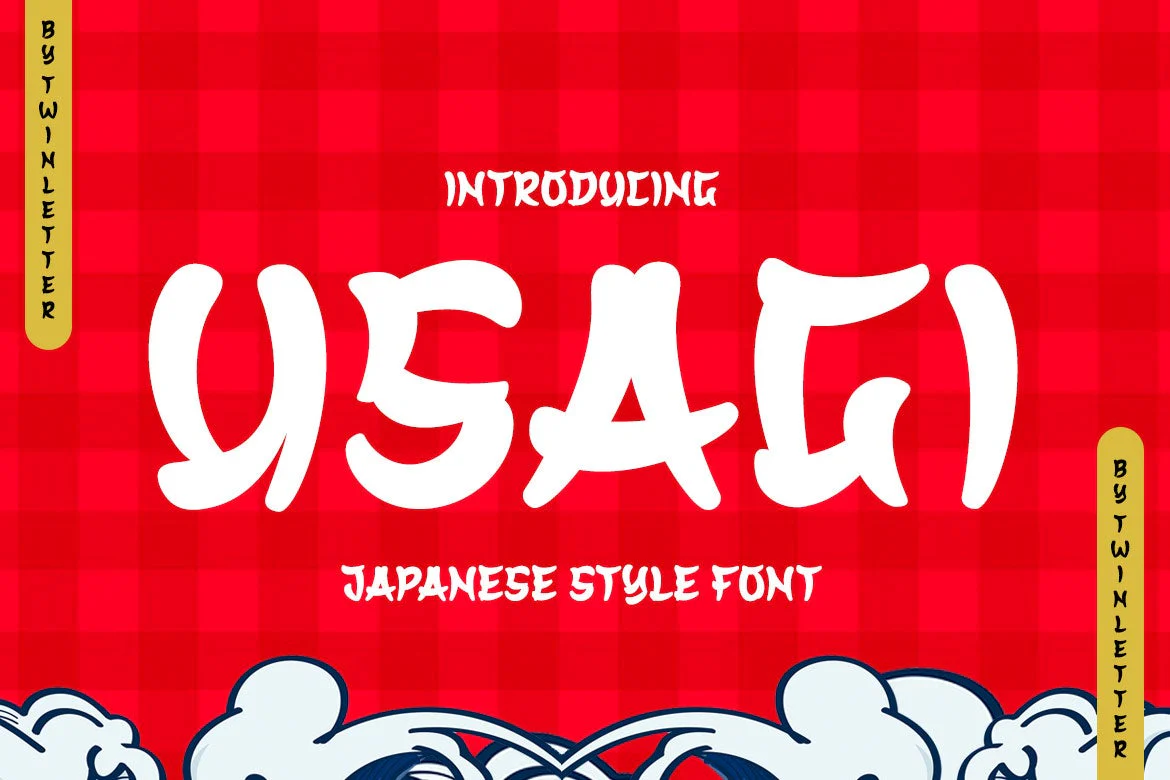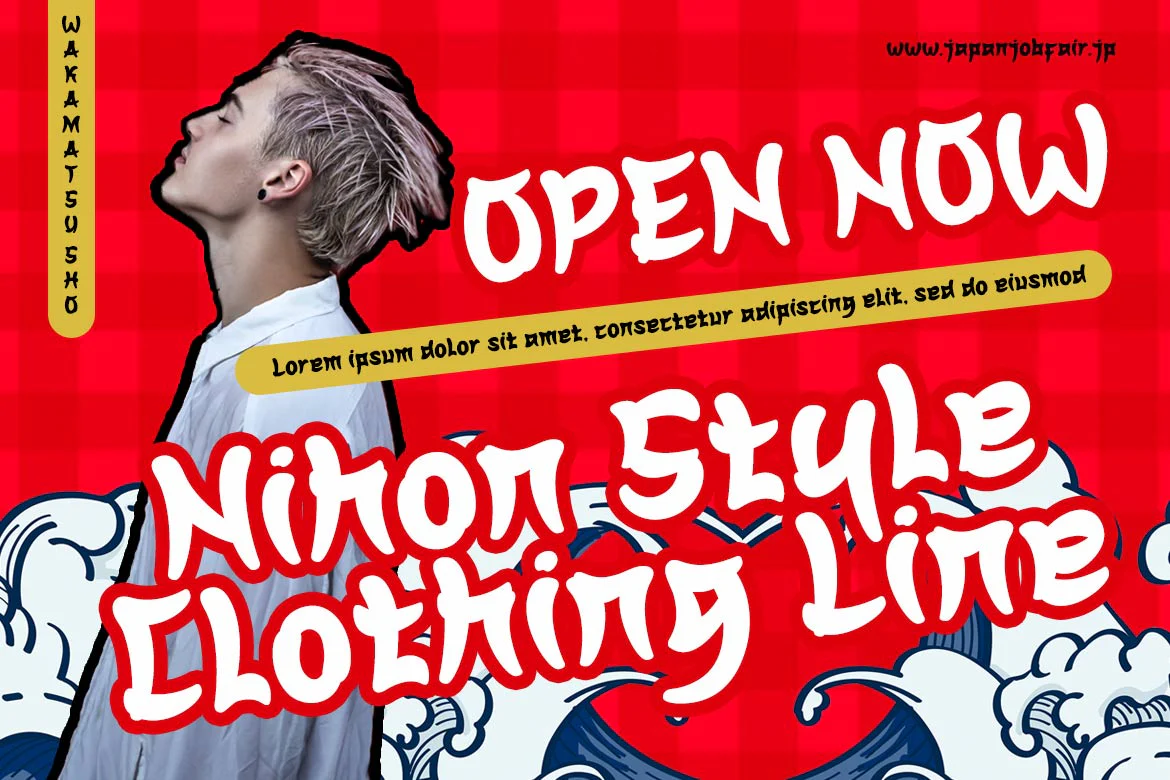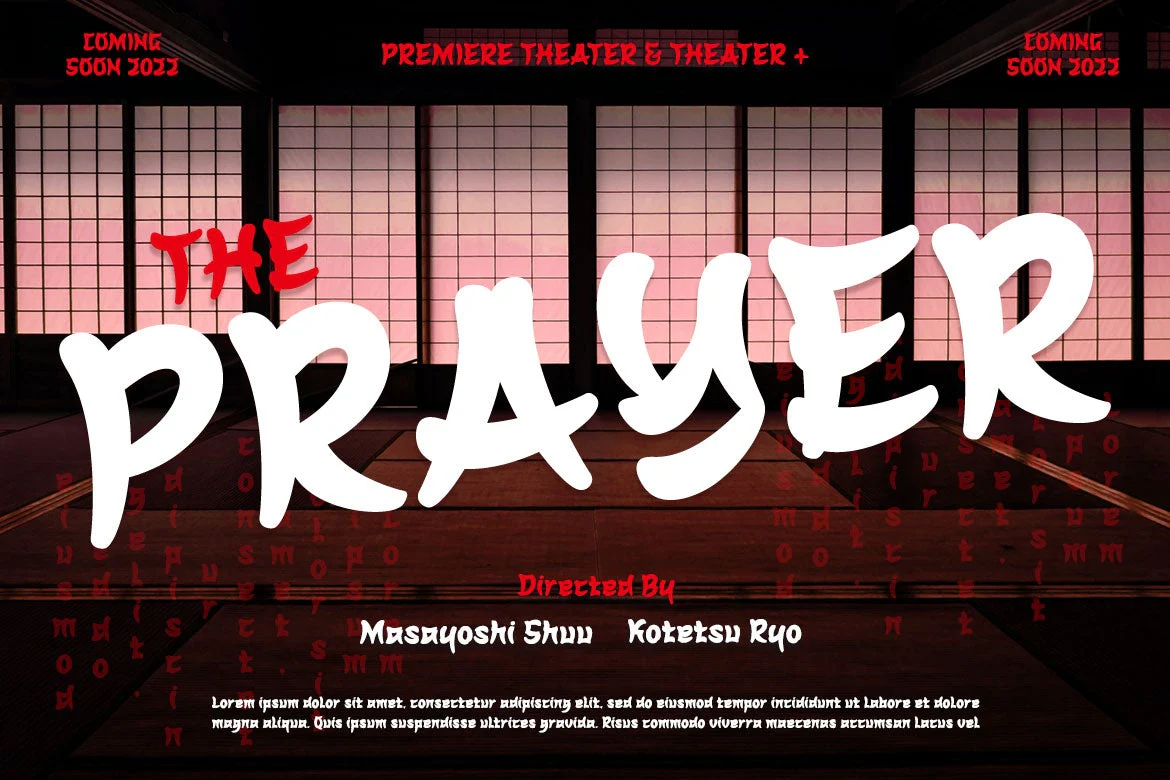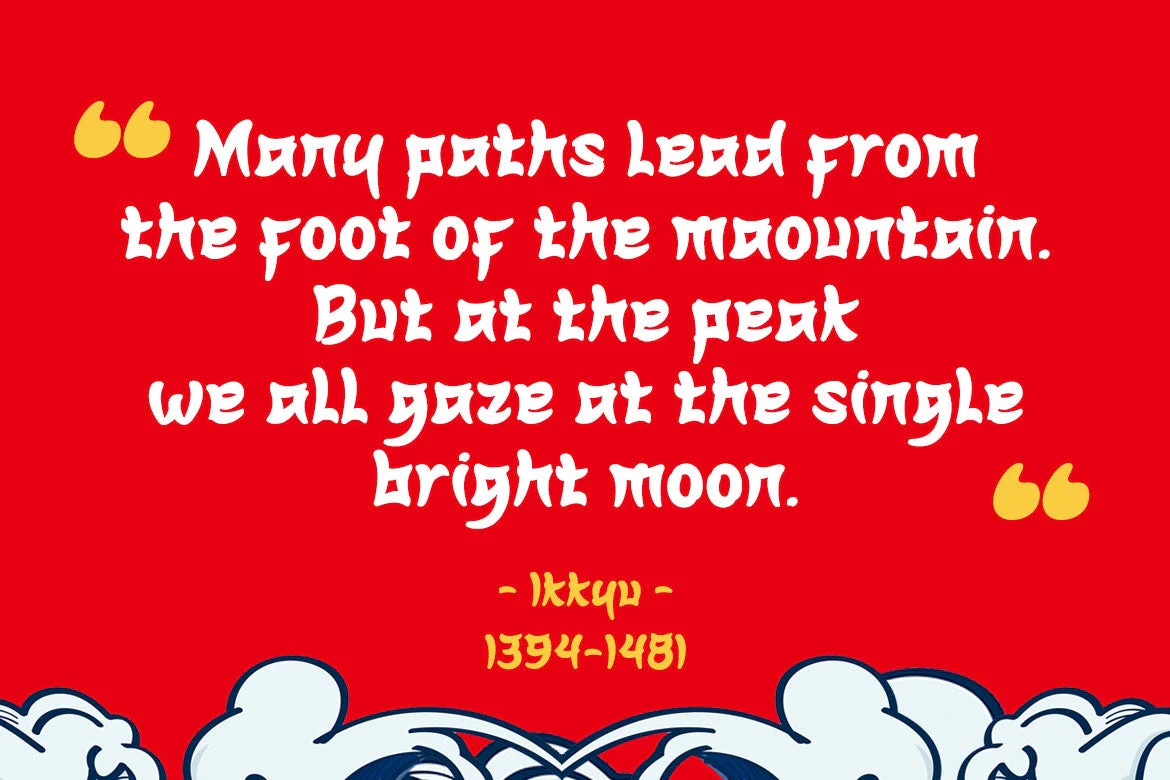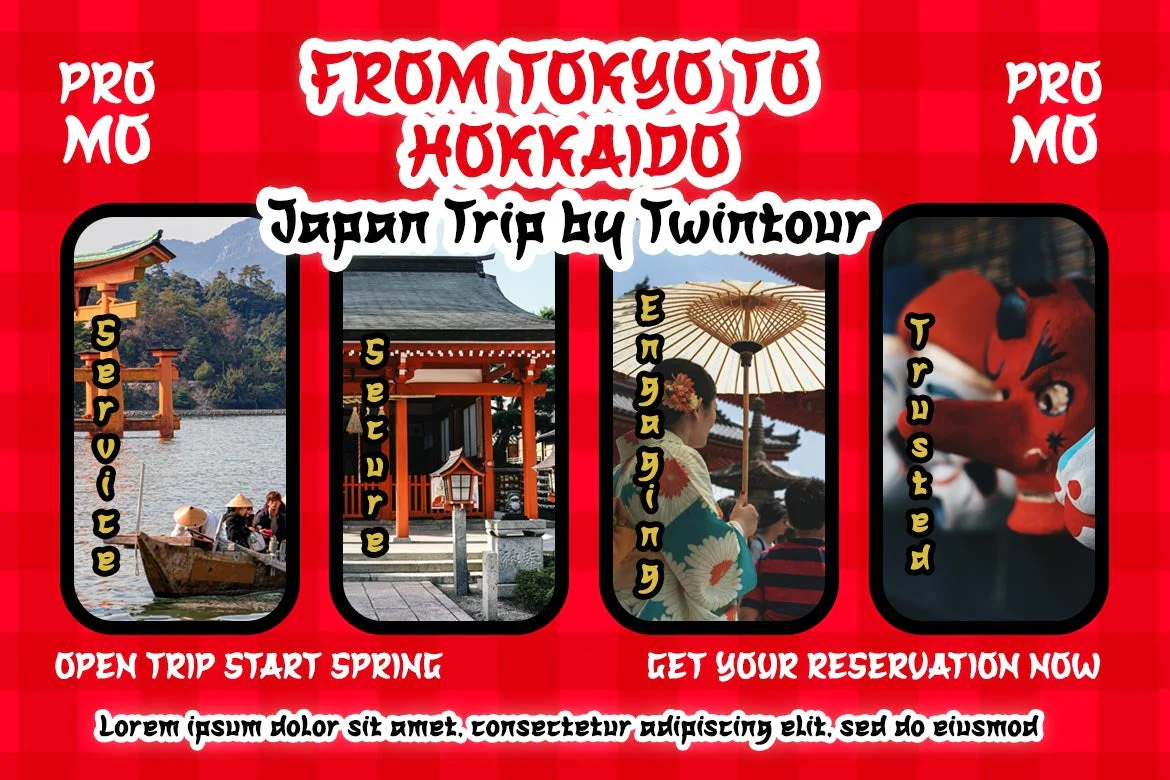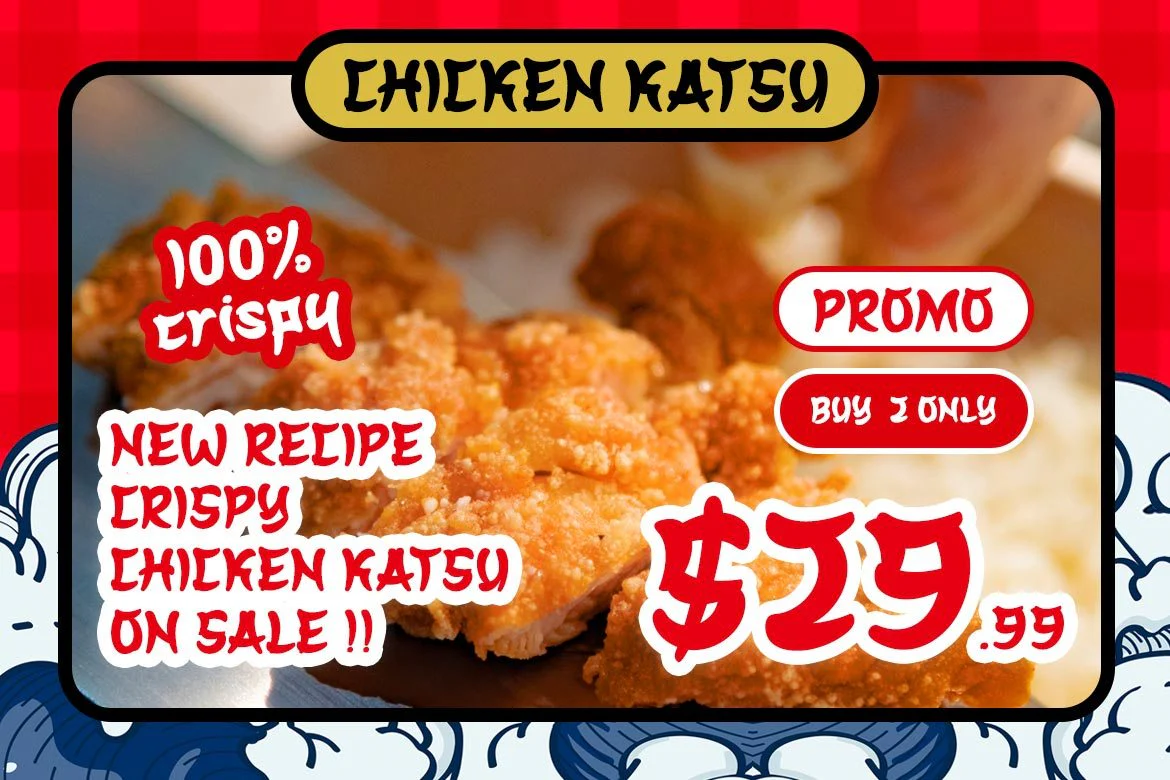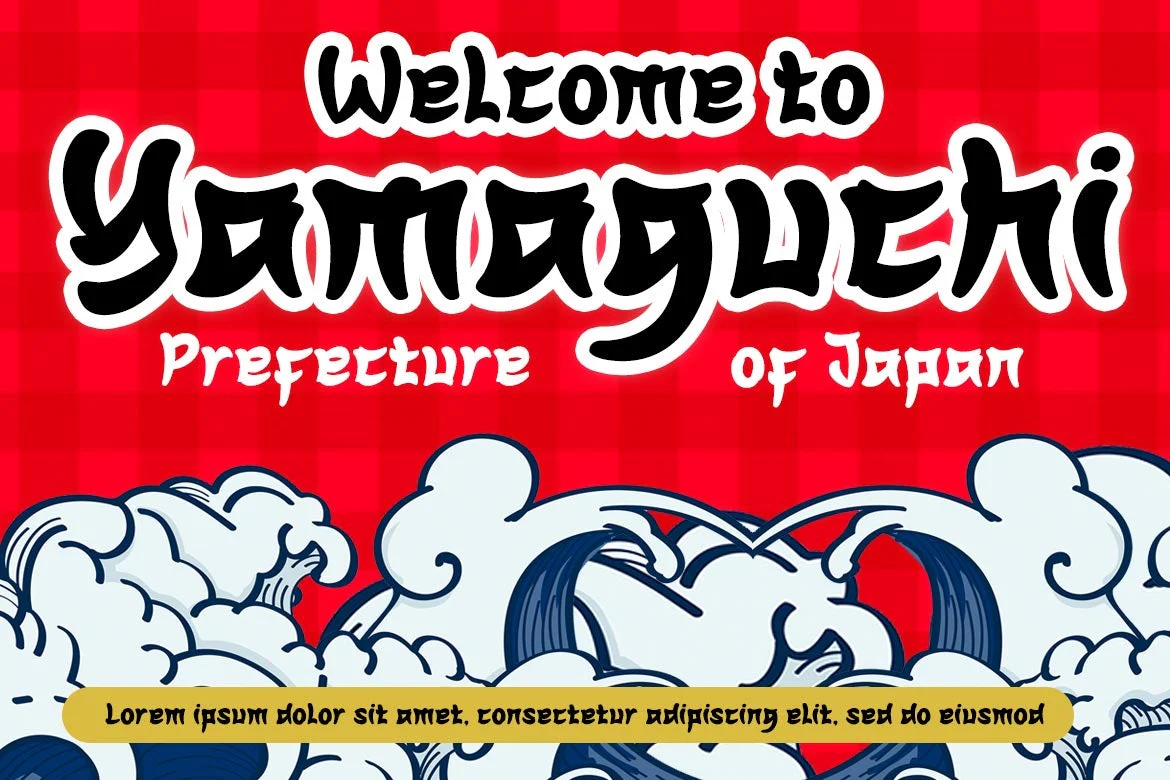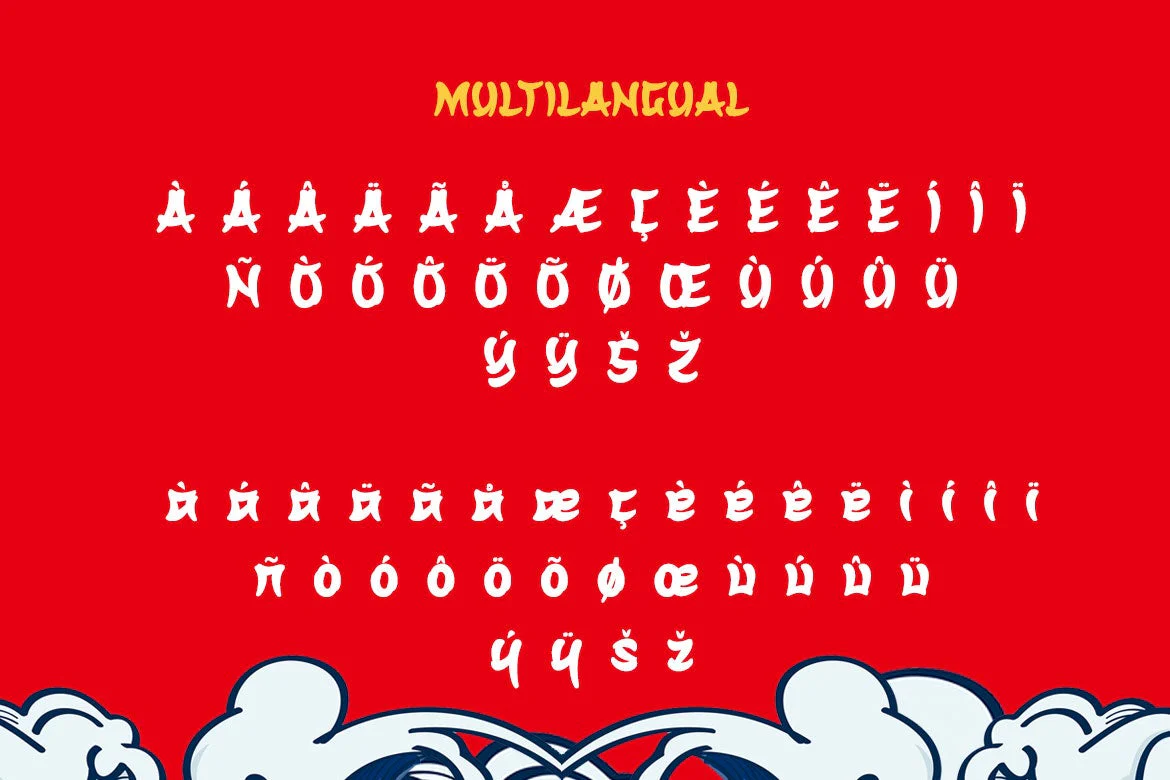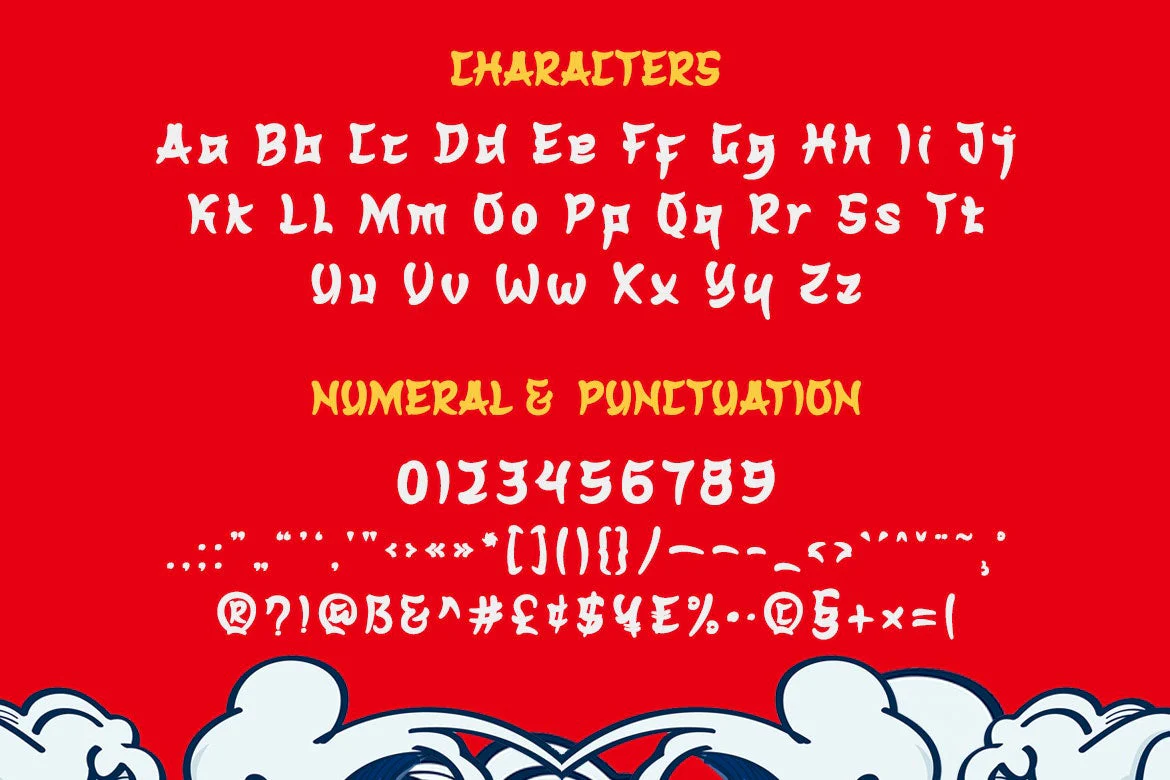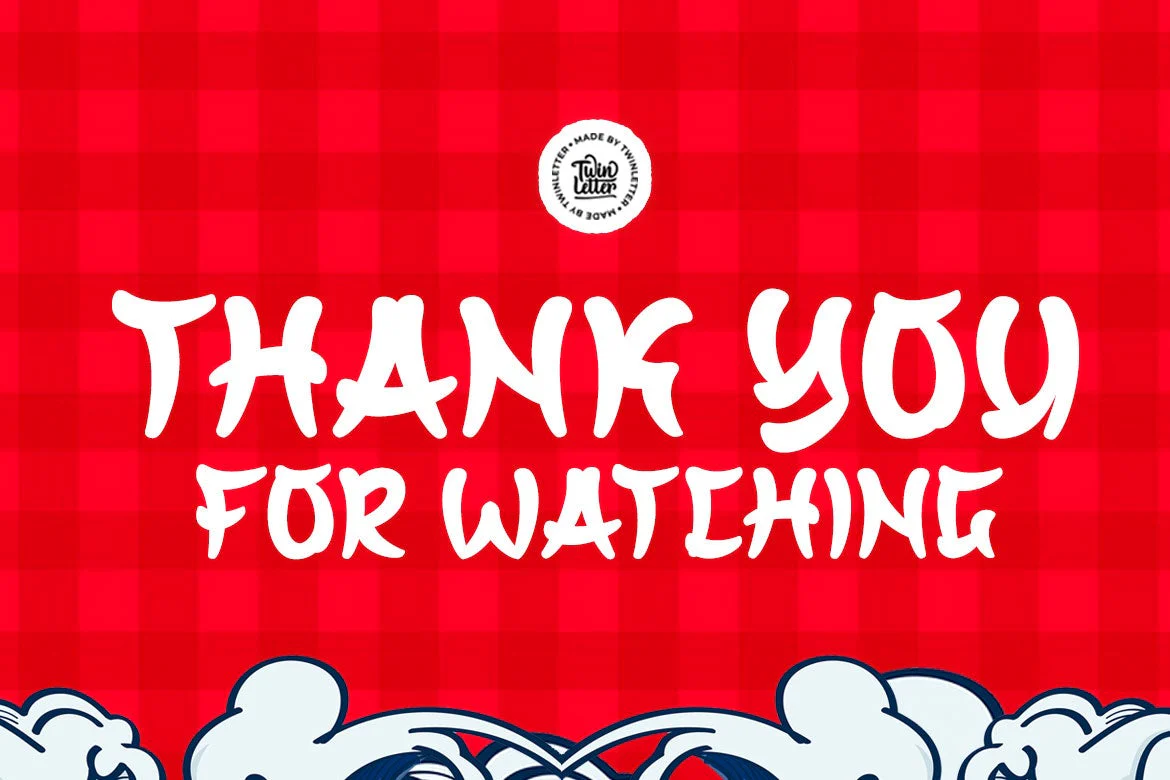
USAGI Faux Japanese Font
Usagi is a display font created with original handwriting. It was created with the Japanese style in mind, therefore it’s ideal for Japanese-themed projects.
Logotypes, food banners, branding, brochure, posters, movie titles, book titles, quotes, and more may all benefit from this font.